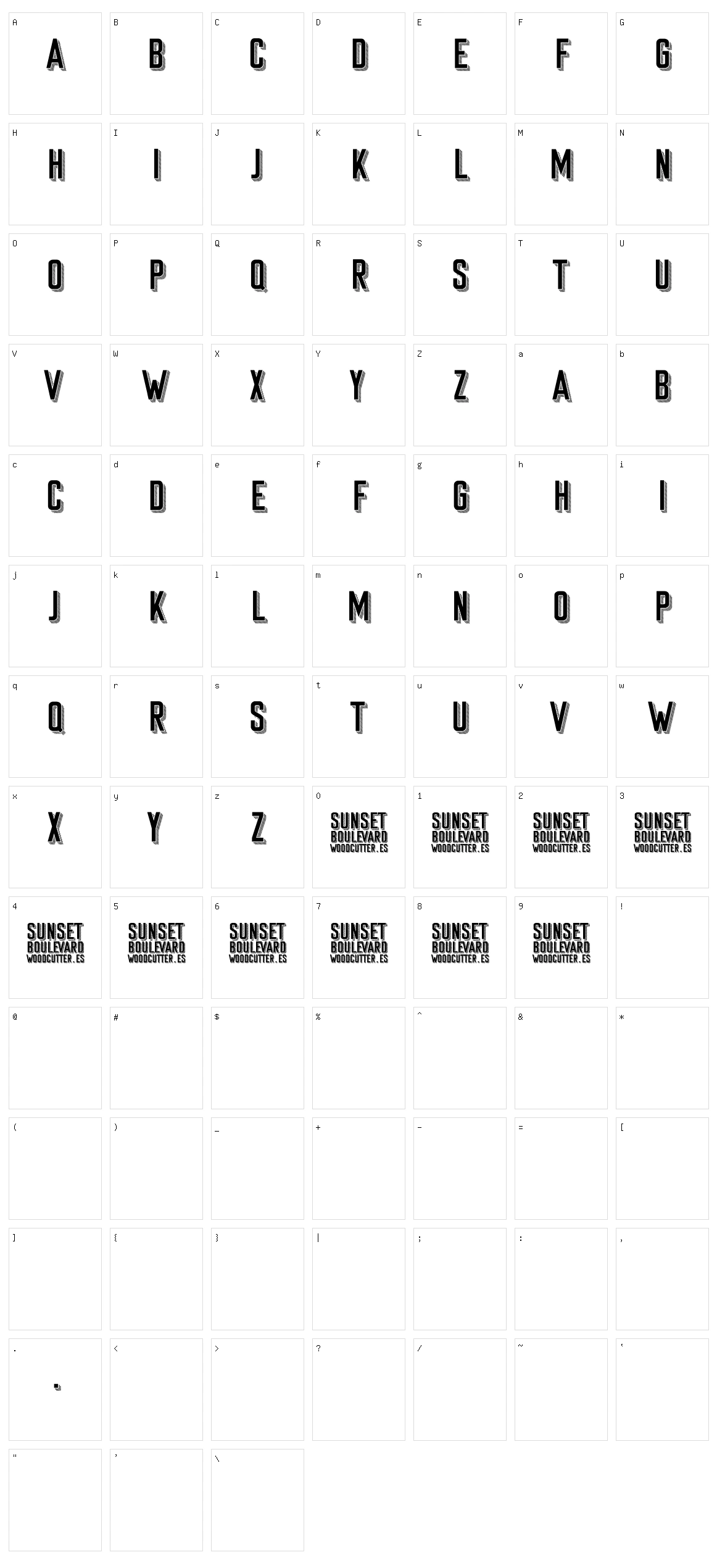
The free font Sunset Boulevard is carefully designed by Woodcutter, showcasing a thoughtful balance of creativity and usability and falls under the Retro font style. When you download the ZIP file, it contains only 202.6 KB of font files, making it lightweight and quick to download. Please review the license details below to understand permitted usage and distribution rights. If license information is not available, we recommend using this font for personal projects only or contacting the author directly for commercial usage permissions.